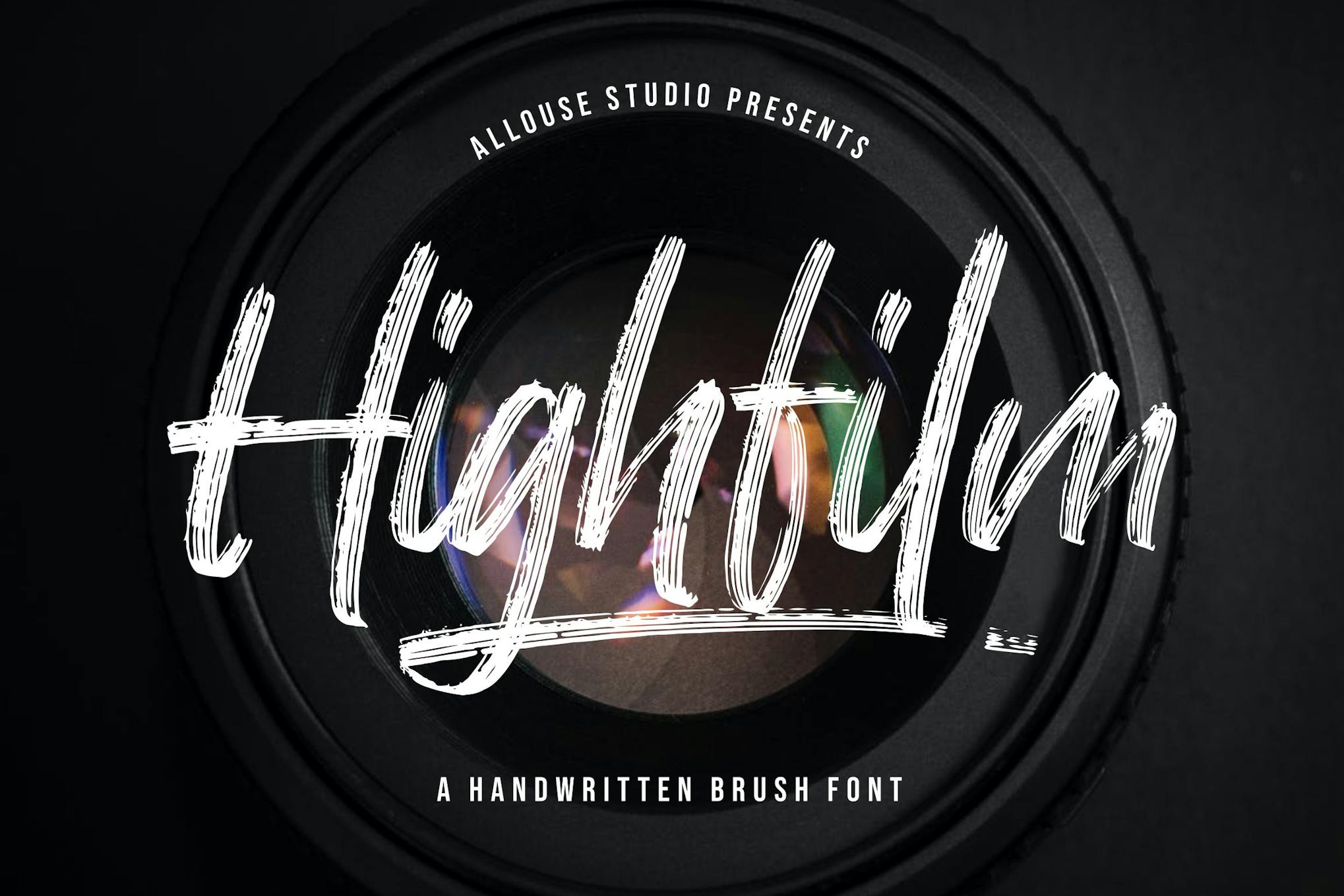
AL - Highfilm Font
Perfect for movie posters, film titles, cinematic branding, social media graphics, video thumbnails, and editorial layouts.
The AL - Highfilm Font excites designers with its bold, dramatic style that channels the essence of classic and modern cinema, adding a cinematic flair to any project.
The AL - Highfilm Font Free Download is a powerful typeface crafted to bring drama and impact to your creative projects. Its strong lines and sharp edges create a striking visual effect, perfect for headlines and display text that demand attention. Whether you’re designing movie posters, video thumbnails, or branding materials, Highfilm delivers a polished cinematic presence.
One of the key strengths of AL - Highfilm Font is its ability to evoke emotion and storytelling through typography. Its versatile design fits well with both classic film aesthetics and modern digital media.
In branding, Highfilm conveys professionalism, creativity, and cinematic excellence. It pairs excellently with bold imagery, dramatic lighting effects, and sleek layouts, helping brands connect with audiences passionate about film and storytelling.
For digital projects, this font enhances website headers, social media posts, and video marketing materials with its impactful and stylish appearance. Its cinematic vibe ensures your digital content stands out with flair and sophistication.